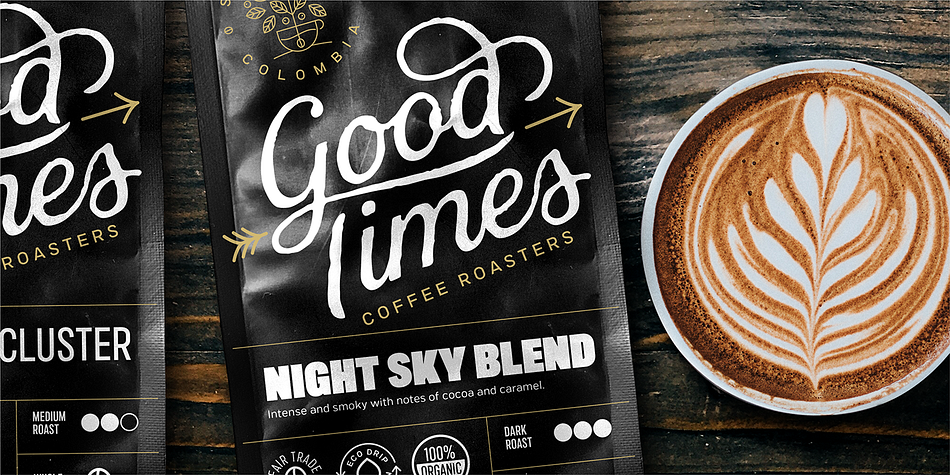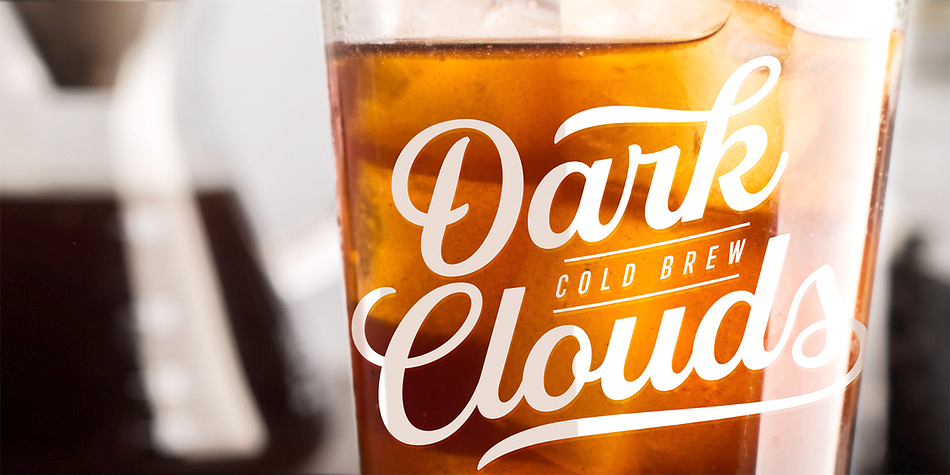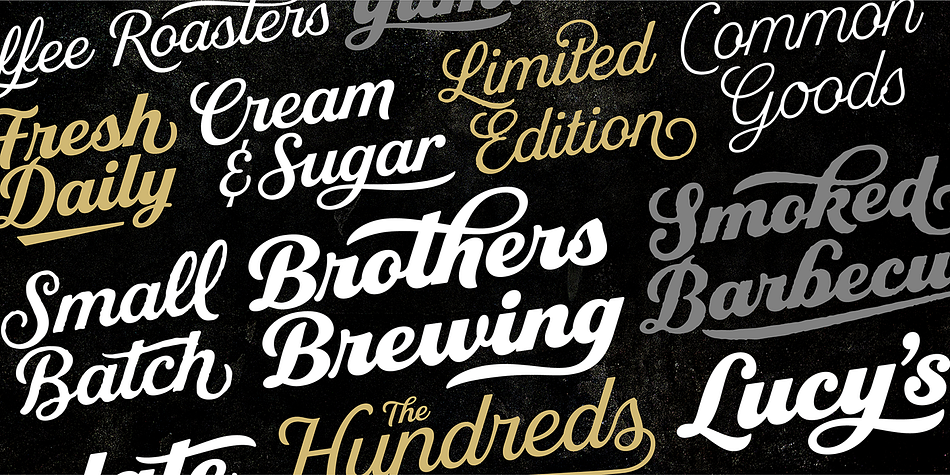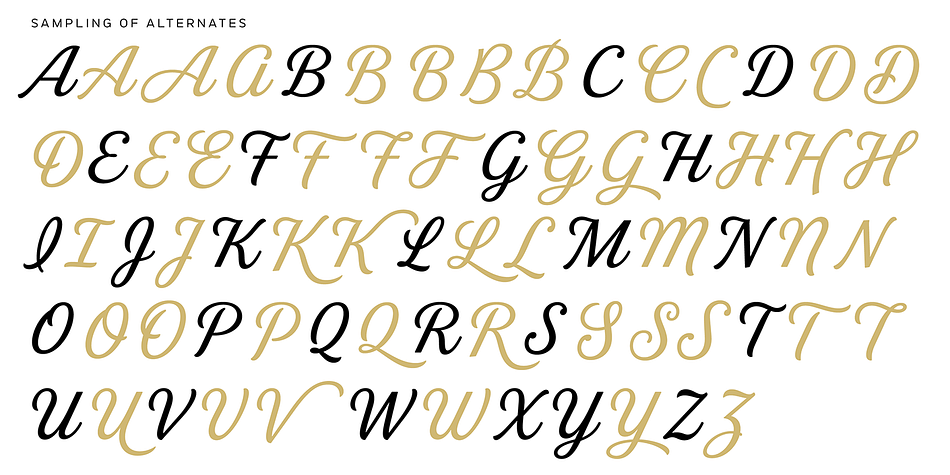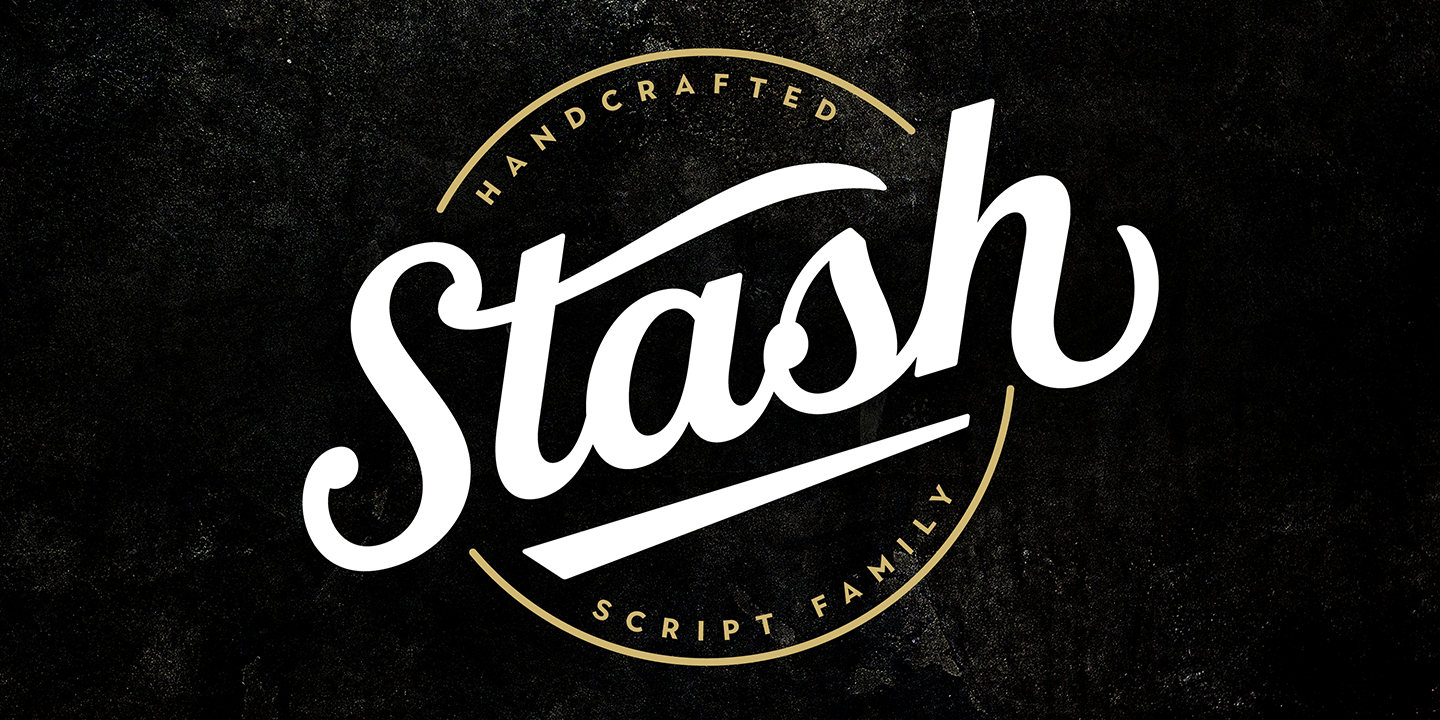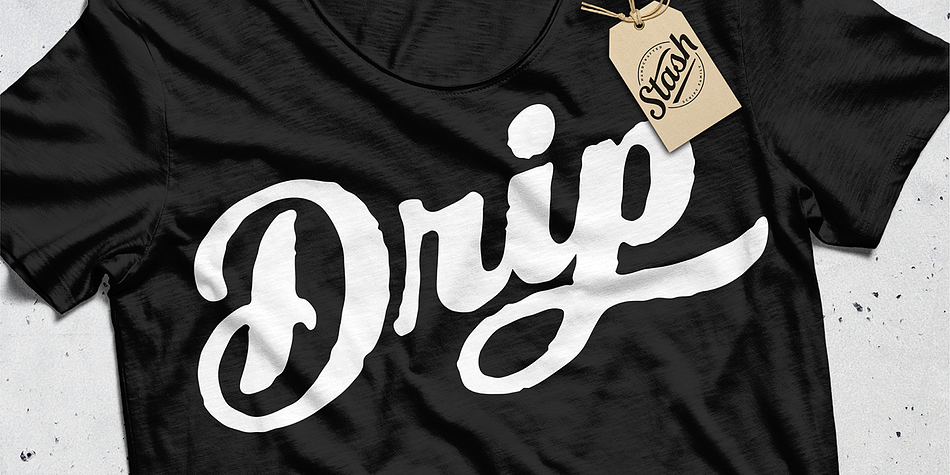
Designed by Jason Vandenberg, Stash is a script font family. This typeface has ten styles and was published by Jason Vandenberg.
Your Stash of fonts for that custom hand-lettered look. Stash comes in two styles; a clean modern and a worn vintage look, each in five weights. Stash features hundreds of alternates to make every setting look crafted and unique. The fonts are programmed with a smart set of contextual alternates that handle initial and final forms, as well as a few connecting pairs, making each word look polished. Tails and underlines round out the character set. With Stash you can craft solid logotypes with a unique look, set posters and ads, and even run longer lines of copy on packaging. Pick it up for your next craft beer label, chocolate pack, café logo, or good old social media posts!
Foundry | Jason Vandenberg |
Designer | Jason Vandenberg |